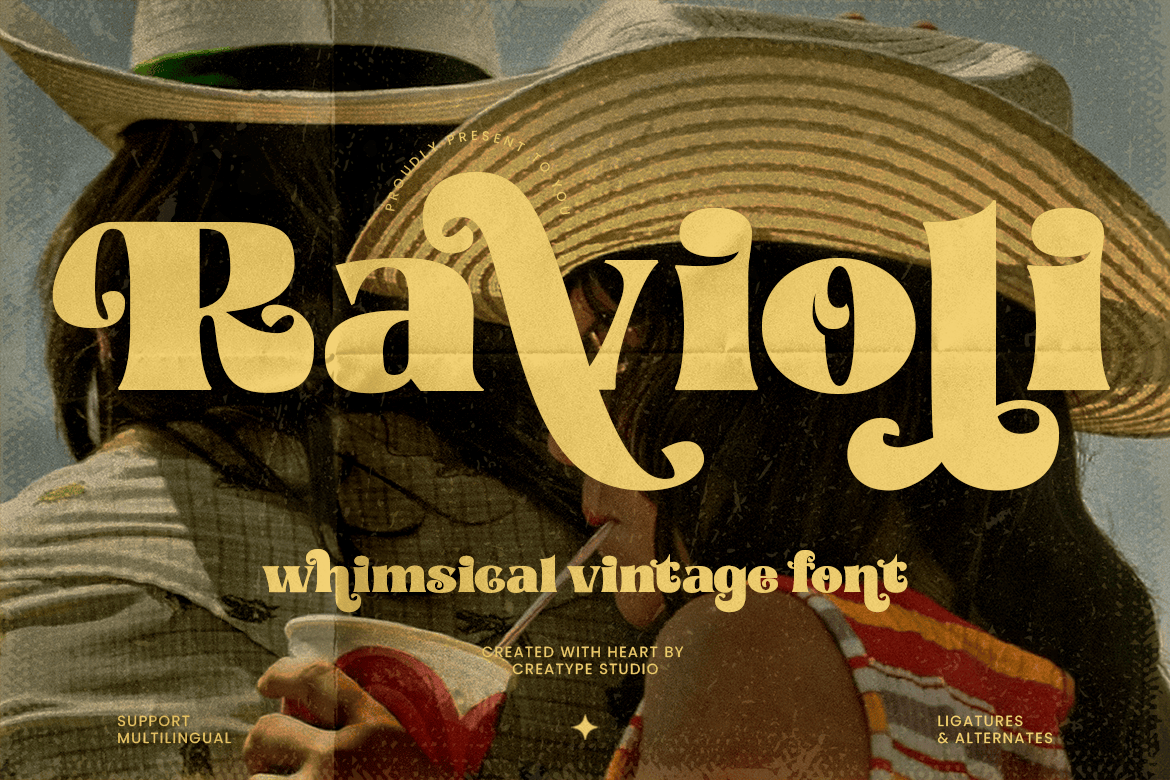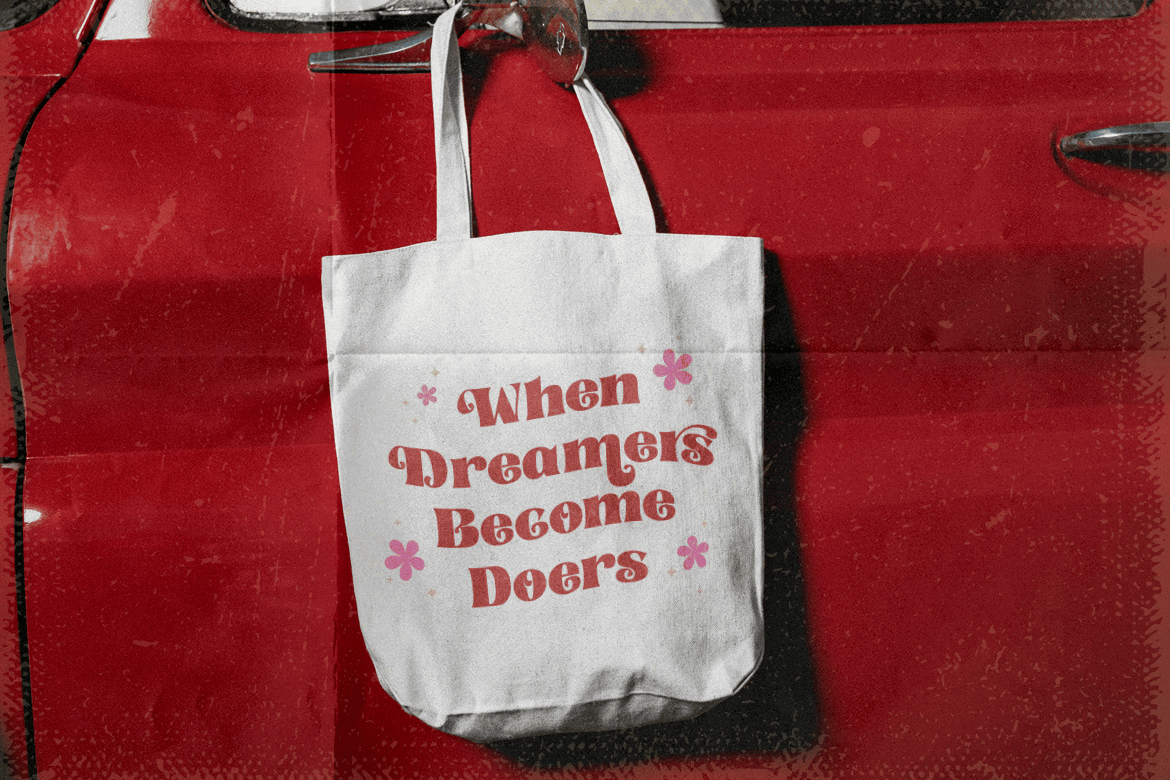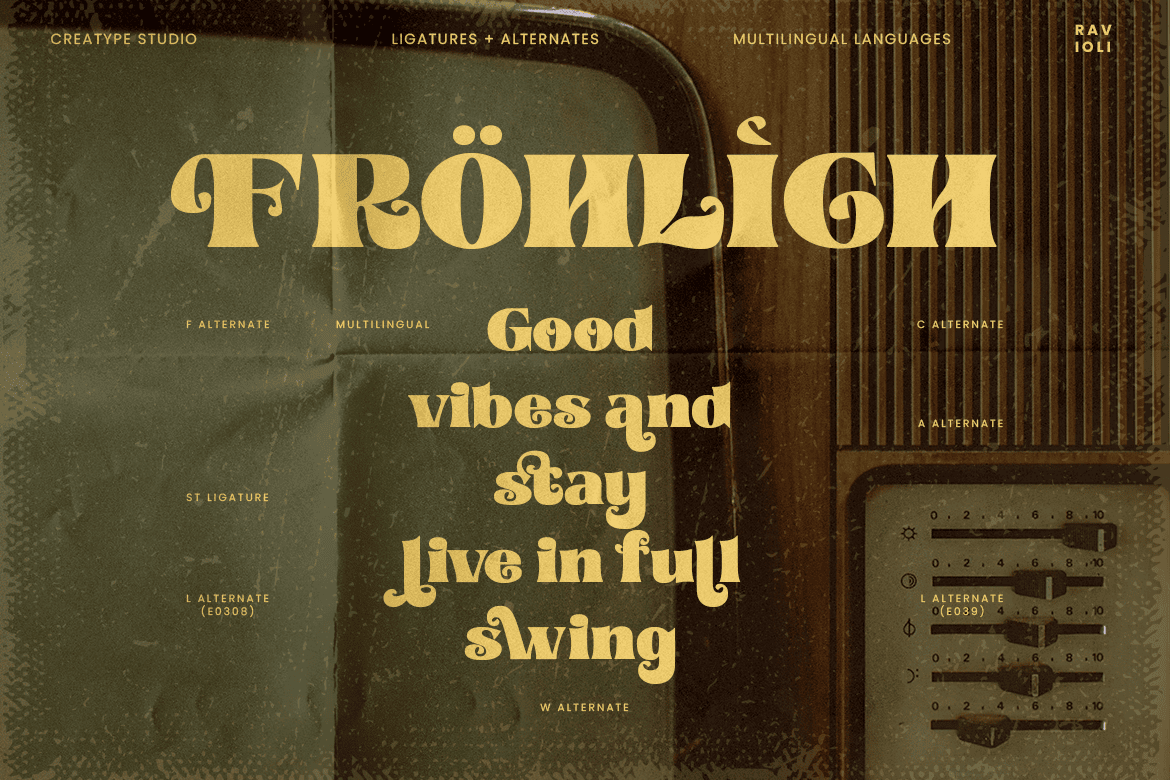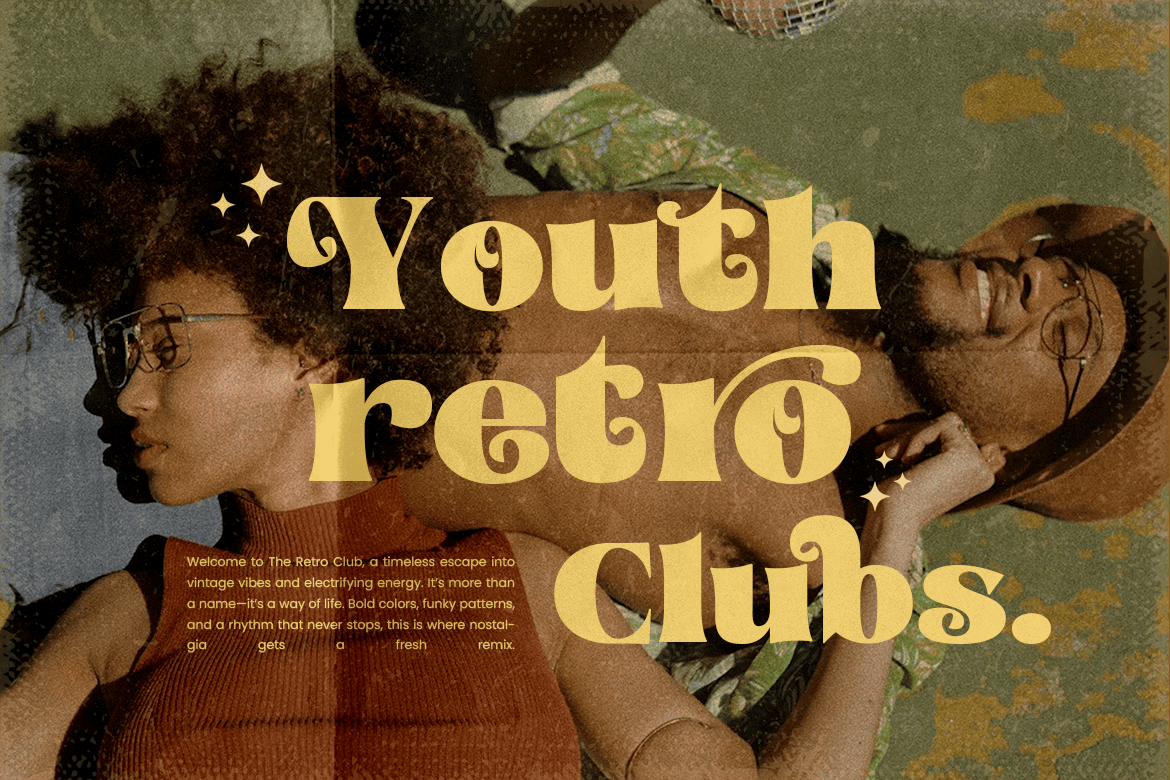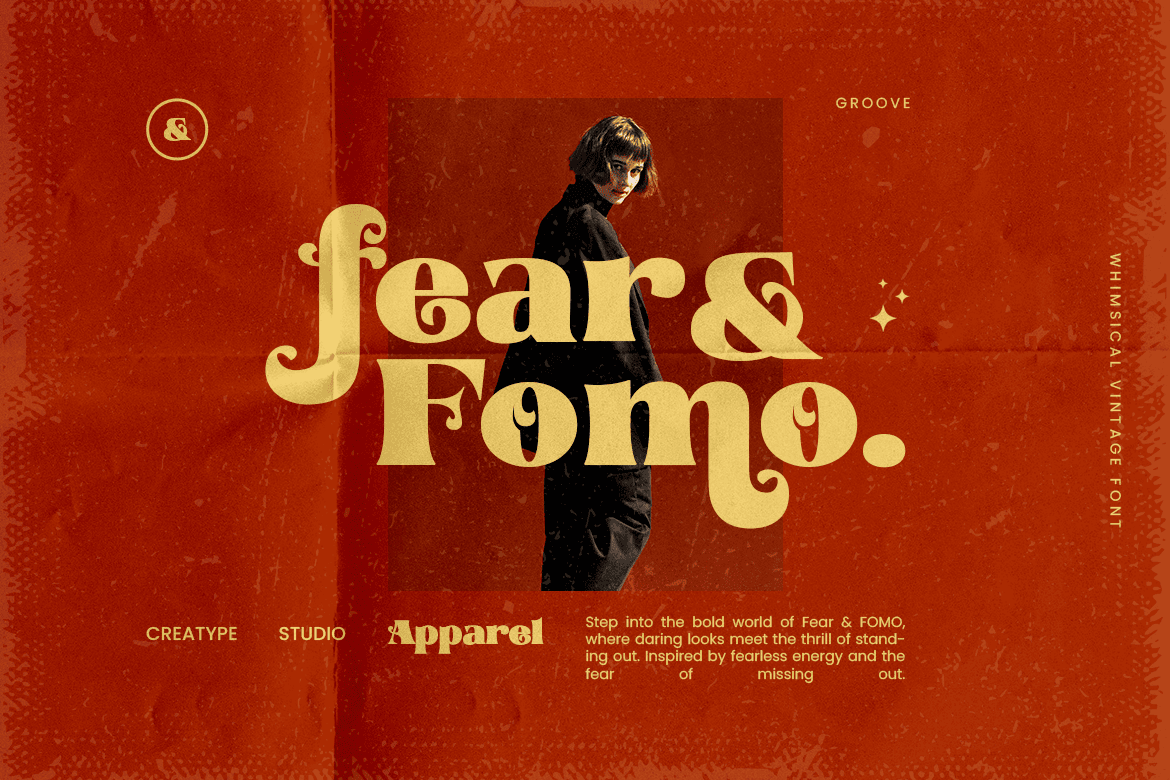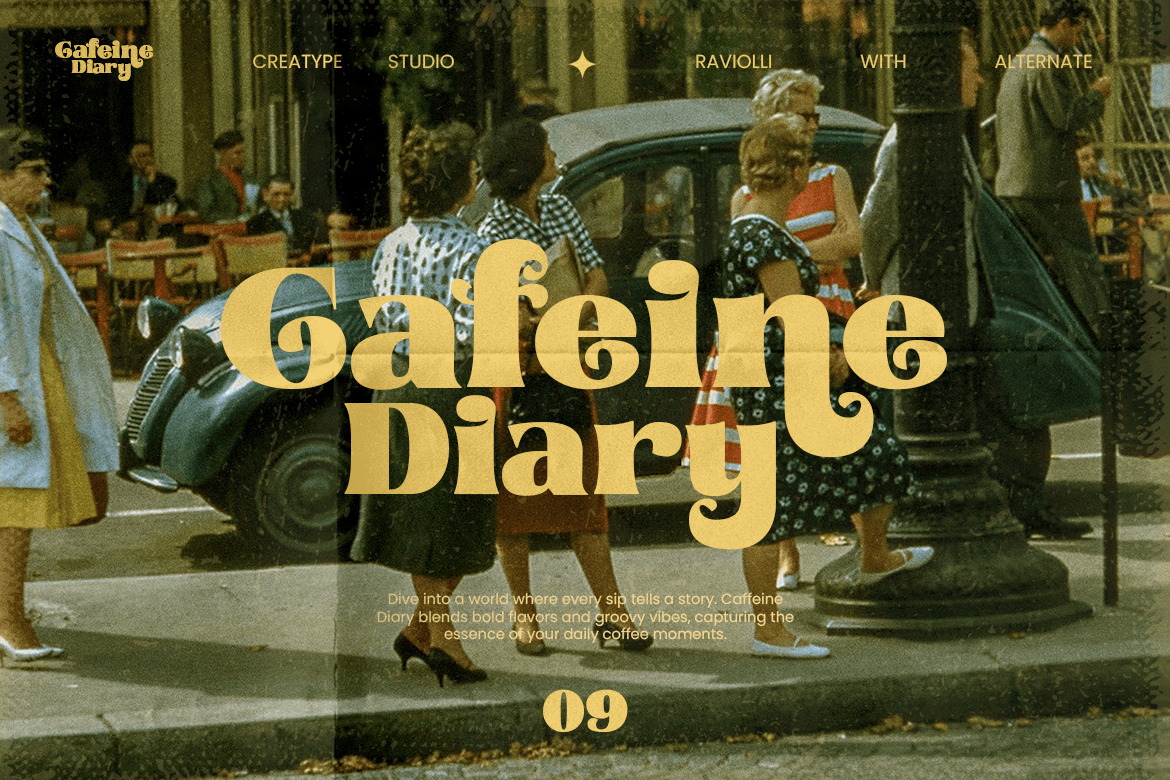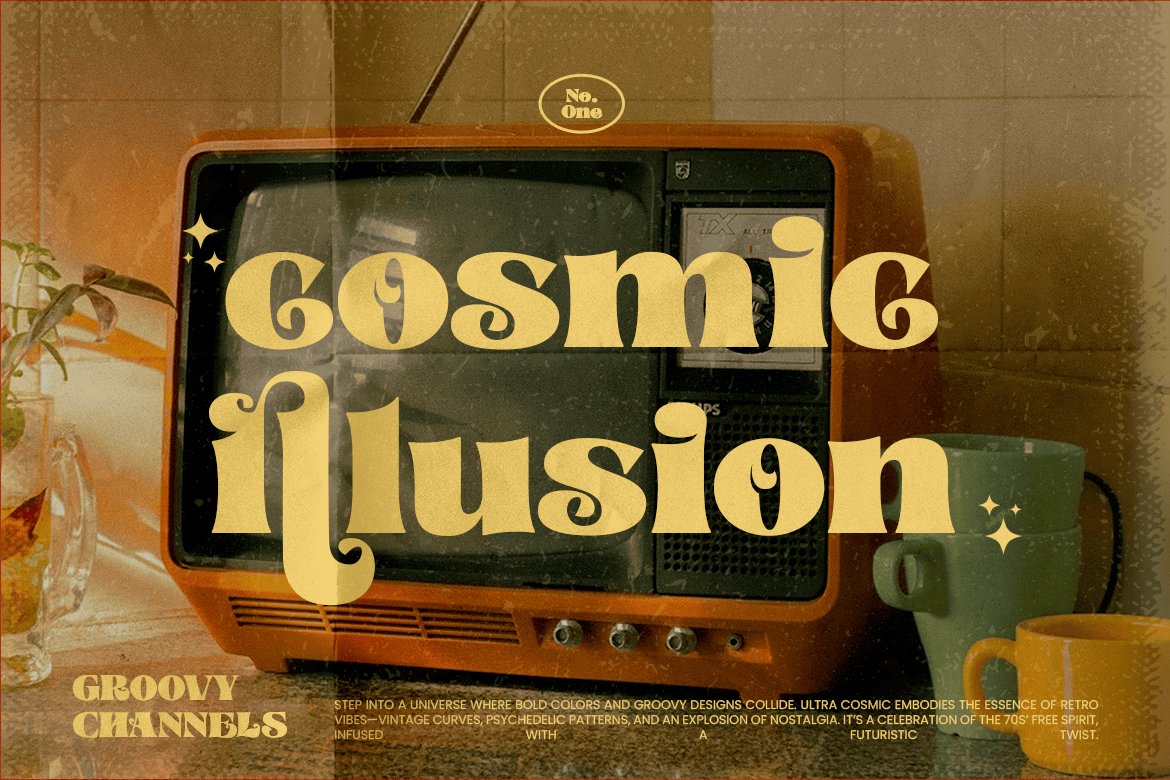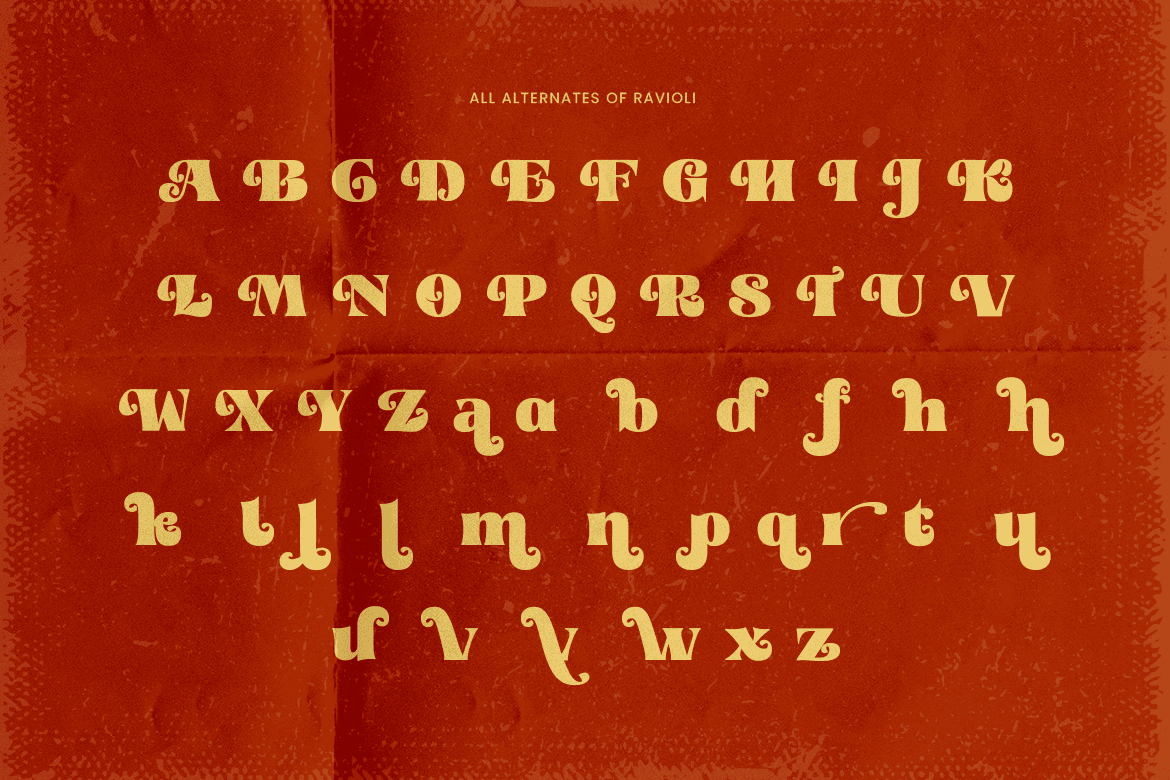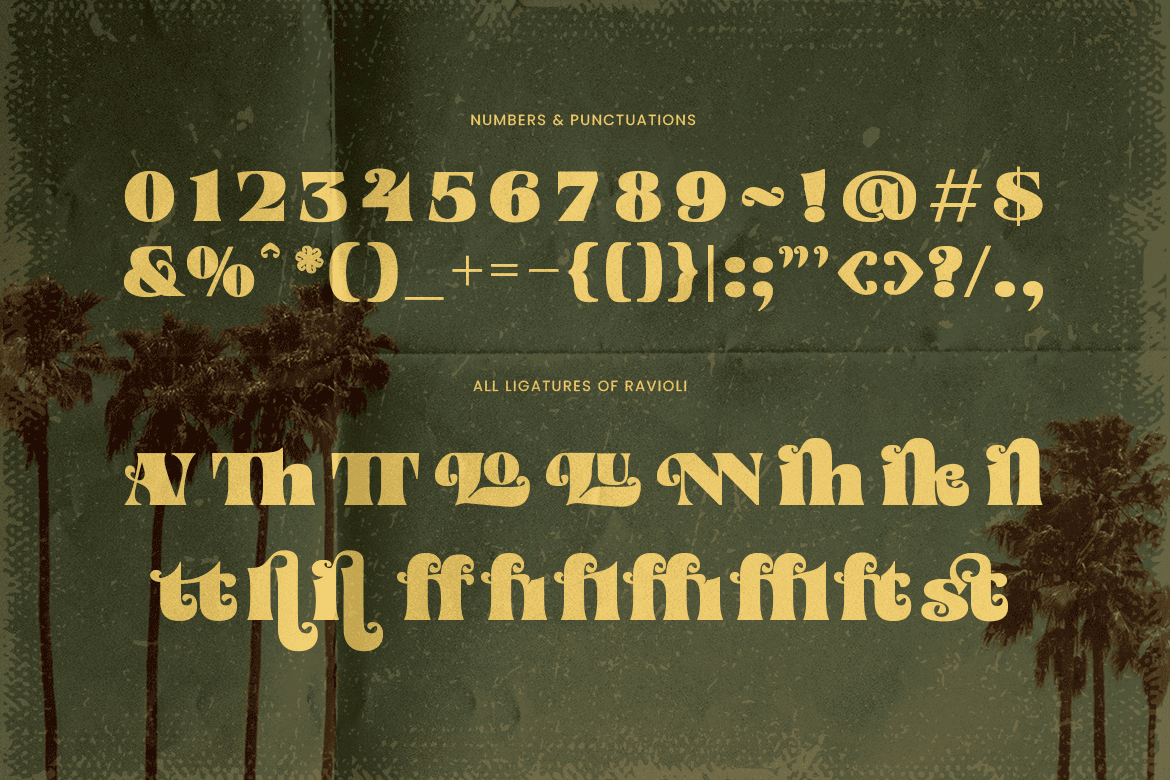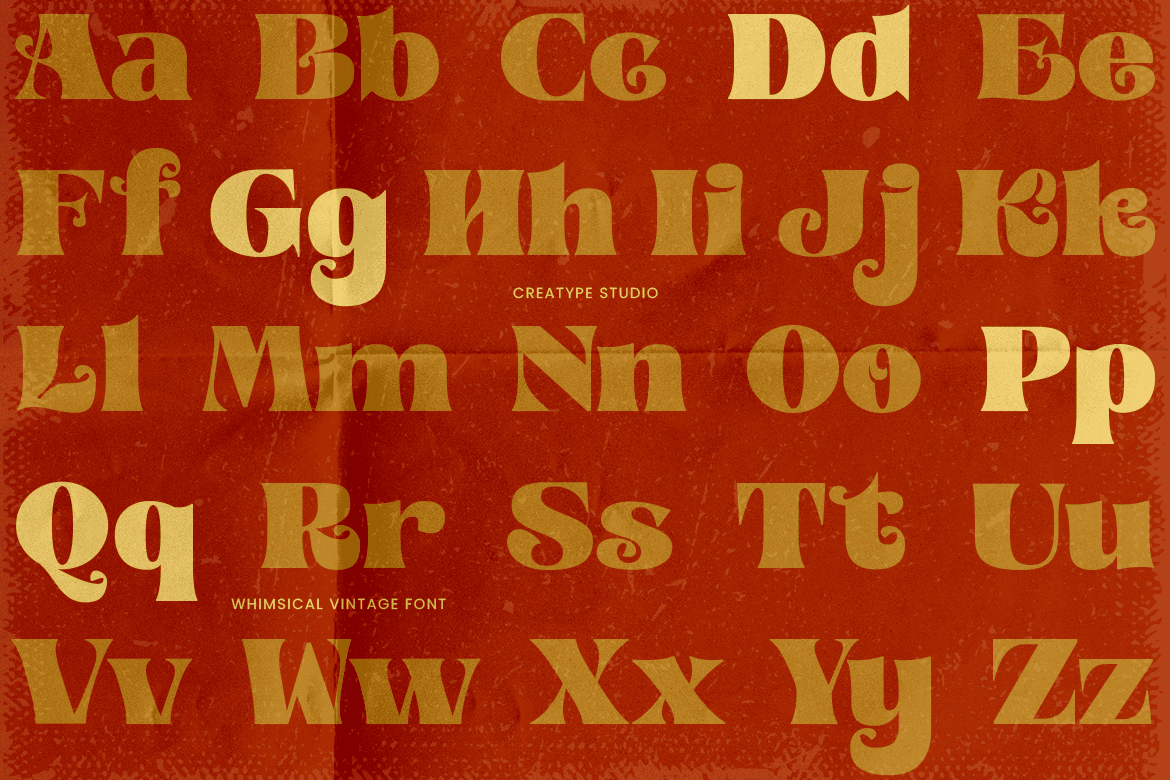
Introducing Ravioli: A Whimsical Vintage Font
Ravioli Whimsical Vintage is a bold, nostalgic typeface that captures the groovy charm of retro design. Its playful curves and intricate details create a unique personality, perfect for projects that demand a vibrant and lively touch. From quirky branding to retro-inspired posters, Ravioli brings an electrifying energy to every design.
Dive into its endless possibilities with dynamic alternates and ligatures, making Ravioli a font that doesn’t just stand out—it dances on the page. Perfect for those seeking a vintage vibe with a fresh twist.
- Ligature, Alternate & Swashes
Ravioli Whimsical Vintage